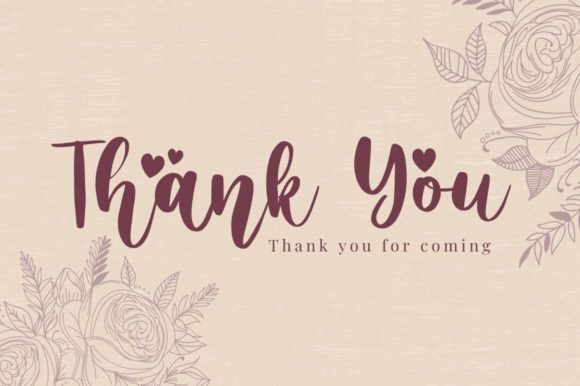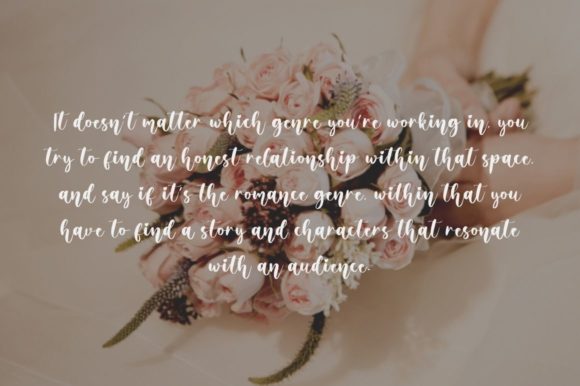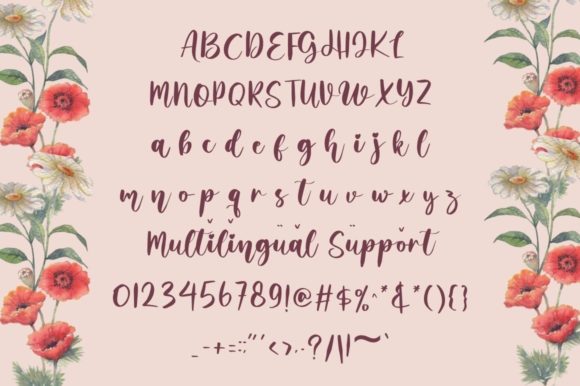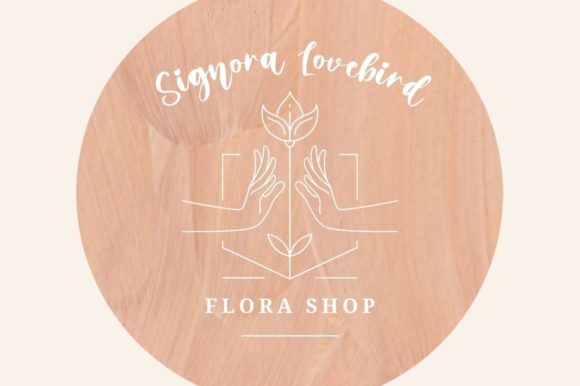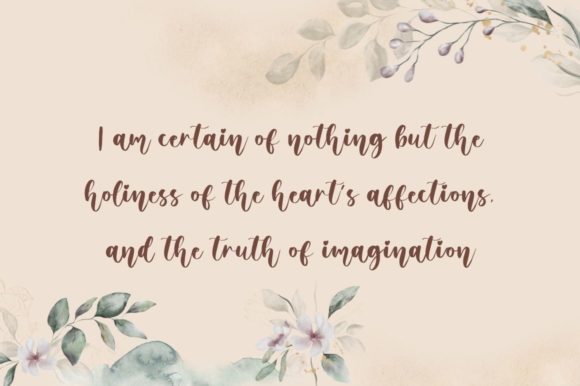
About Wonder Font
Wonder feels equally charming and sweet. It looks ravishing on wedding invitations, thank you cards, quotes, greeting cards, logos, business cards and every other design which needs a customized touch.